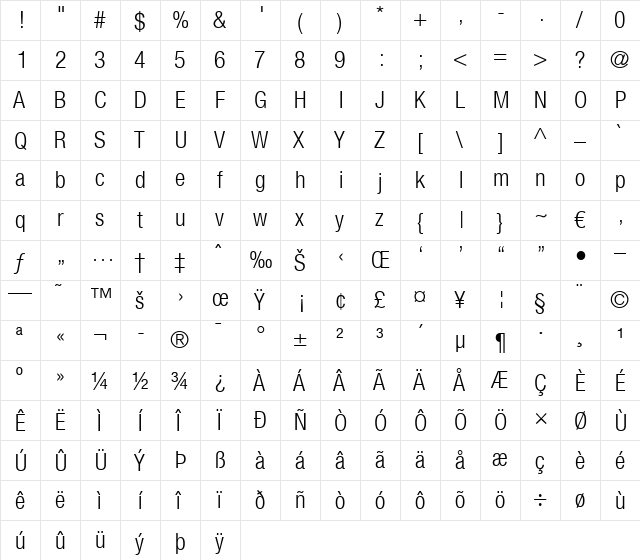
HelveticaNeue LT 47 LightCn Regular Font Preview
HelveticaNeue LT 47 LightCn Regular
HelveticaNeue LT 47 LightCn Regular Font Details
| Foundry | Linotype Library GmbH |
Design Context for HelveticaNeue LT 47 LightCn Typeface
HelveticaNeue LT 47 LightCn takes a measured approach to typography — its balanced proportions and neutral character make it a reliable workhorse for both digital and print work. Its slender proportions lend an understated elegance to any composition.
Pro Tip: Use HelveticaNeue LT 47 LightCn in both headline and body roles to test its range before committing to a single application.